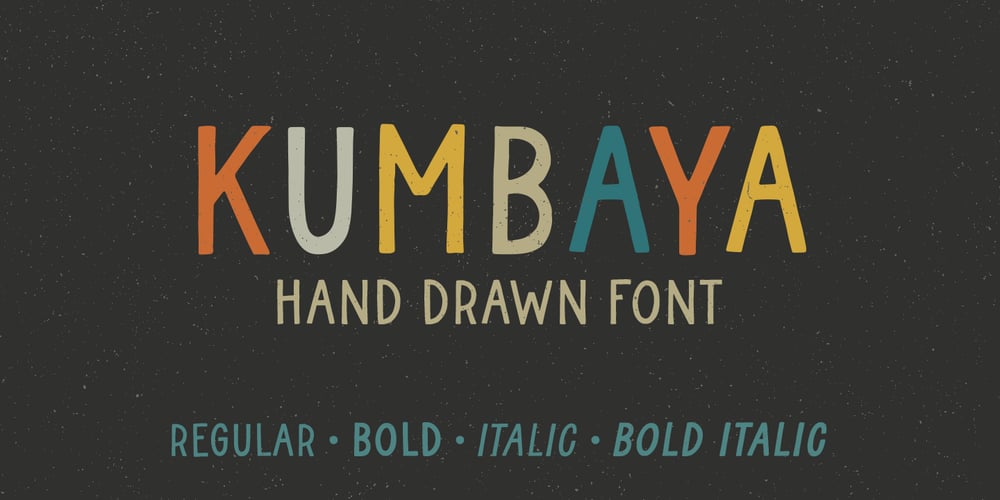
Kumbaya
Kumbaya font
Kumbaya Font Family was designed by Rachel Kick and published by Rachel Kick. Kumbaya contains 4 styles and family package options. Kumbaya is a purely hand-drawn, all-caps sans. It’s the perfect combo of handmade quirks and clear, legible print.Kumbaya has the ability to hold it’s own as a single word headline, or in a paragraph form. It also works well with script compliments. With four different styles, it is the perfect addition to any project!